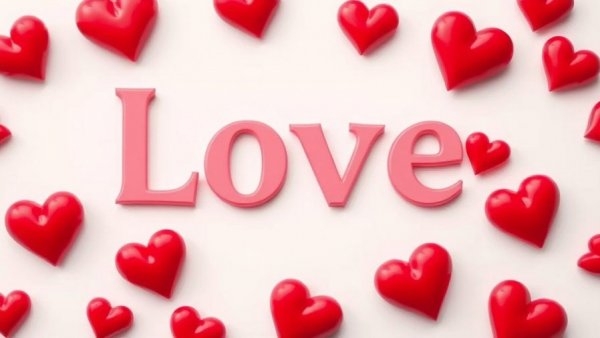
Discover 45+ Love Fonts to Elevate Your Graphic Design Projects
Stylized 'love fonts' design with heart motifs for graphic design.
Love Fonts: The Heart of Emotional Design
In the world of graphic design, love fonts play a crucial role in conveying emotions and creating connections. For projects where warmth and personality are essential—be it wedding invitations or heartfelt logos—finding the right typeface can significantly enhance the overall design. Love fonts need to be both legible and charming, inviting the viewer to engage emotionally with the message. Designers often search for these fonts with a focus on how they touch the heart without feeling forced or overly stylized.
Why Choose Love Fonts for Your Projects?
Love fonts can transform a mundane design into something enchanting. When selecting a love font, consider its adaptability: it should retain its beauty and clarity, whether displayed on a website, a social media post, or printed packaging. The carefully curated list of 45 love fonts features styles that resonate well across various applications. Hidden gems include versatile fonts that can complement both trendy and traditional aesthetics, making them ideal for businesses dealing in gifts, events, or handcrafted products.
The Role of Handwritten Styles
Handwritten styles are particularly appealing in love fonts as they convey intimacy and personal touch. Fonts like 'Your Love' or 'Lovedays' exemplify this trend, blending cursive clarity with charming embellishments. For those designing wedding stationery, these fonts ensure that names and dates flow gracefully, guiding the readers' eyes like a beautiful story. Such choices not only look good but also create an inviting atmosphere that speaks to emotions.
Branding and Love Fonts: A Perfect Match
Graphic designers know that a brand identity isn't just about colors and logos; it's deeply connected to typography. Love fonts can strengthen brand messaging, especially for businesses associated with romance, events, or the arts. Choosing a font that matches the brand's voice can enhance recognition, making it memorable and relatable. For instance, a logo designed with a soft, romantic font can evoke feelings of warmth, beautifully aligning with a brand focusing on love and relationships.
Practical Applications: Beyond Weddings
While love fonts shine in wedding-related projects, their versatility allows them to thrive in other contexts as well. They can uplift quotes, adorn greeting cards, or bring banners and social media posts to life. The emotional weight of the font amplifies the message, encouraging viewers to engage with the content profoundly. A post adorned with a whimsical love font paired with a meaningful quote can capture attention, inspiring likes and shares across social media platforms.
Creating Visual Harmony: Pairing Fonts
Designers often face the challenge of pairing typefaces harmoniously. Many love fonts in this collection are specifically chosen for their ability to coexist elegantly with sans-serif companions, creating visual balance and clarity. Mixing these typefaces can help reinforce the overall concept, making designs not only more beautiful but also more effective in communicating the intended message to the audience.
The Impact of Context in Font Selection
Understanding the context where a font will be used is essential in the design process. For example, a font suitable for a wedding invitation may not fit a business logo or a product label. Designers need to consider the target audience and how they will perceive the typography. This means being aware of cultural sensitivities and emotional triggers related to specific styles, ensuring that the design resonates as intended.
Future Trends: Typography in an Evolving Digital Landscape
As design moves increasingly into digital realms, the demand for connecting emotionally through typography will only grow. Designers aspiring to create heartfelt connections will need to stay updated on emerging trends while remaining true to timeless styles. Love fonts will continue to play a vital role in this landscape, guiding emotional responses and shaping the visual dialogue between brands and consumers.